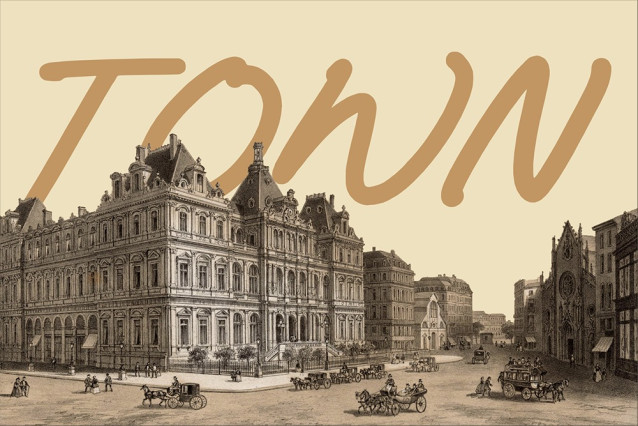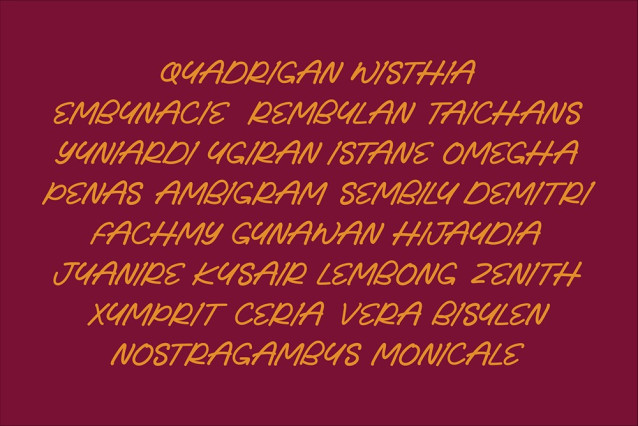
Jumpsher Monoline Font
Jumpsher Monoline Font, a sleek and elegant monoline handwritten typeface designed for modern versatility and effortless style. Crafted by Enxyclo Studio, Jumpsher offers a dynamic yet clean handwriting aesthetic that brings sophistication and personality to any design.